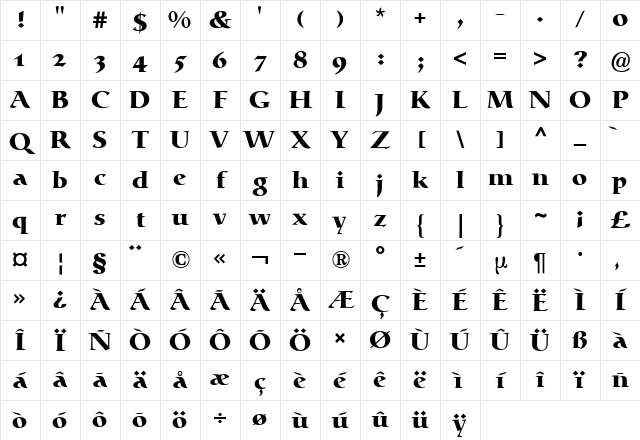
Catull Expert BQ Bold
Foundry: COPYRIGHT H. BERTHOLD AG Alle Rechte vorbehalten
Design Context for Catull Expert BQ
Catull Expert BQ is a composed and adaptable typeface that performs quietly and consistently across a wide range of design contexts. Its bold stroke weight gives it real presence on the page.
Who designed the Catull Expert BQ Bold font?
This font was published by COPYRIGHT H. BERTHOLD AG Alle Rechte vorbehalten. Check the technical specs section for copyright and designer details.